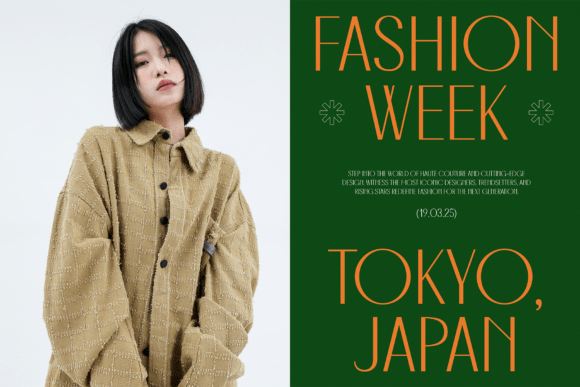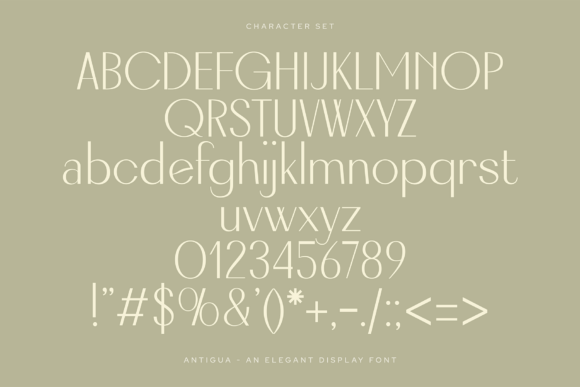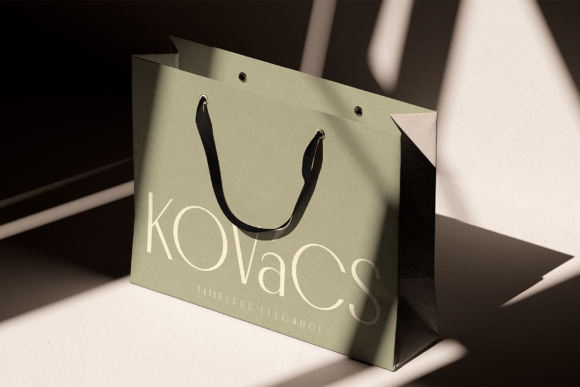
Make a Striking Impression with the Antigua Elegant Font
In the world of typography, few fonts manage to convey timeless elegance and sophisticated flair as effortlessly as the Antigua Elegant Font. This beautifully crafted typeface is a masterclass in sleek charm and aesthetic appeal, making it the perfect addition to any design project that demands a touch of refined sophistication. Whether you’re a seasoned designer or a crafty DIY enthusiast, the Antigua Elegant Font is sure to make a lasting impression.
The Beauty of Elegance
At its core, the Antigua Elegant Font is a celebration of classic elegance. Its sleek lines, flowing curves, and expertly balanced proportions come together to create a typeface that exudes refinement and poise. This font is not just a means of conveying information; it’s an experience in itself. The moment you lay eyes on text set in Antigua Elegant, you’re struck by its beauty and sophistication. It’s the perfect choice for designers and crafters who want to add a touch of luxury to their work.
Easy to Customize
One of the standout features of the Antigua Elegant Font is its versatility. This font is delightfully easy to tweak, allowing you to adjust the text color to seamlessly integrate with your visual theme. Whether you’re working on a branding project, a website, or a craft project, you can easily customize the font to match your unique aesthetic. This flexibility makes the Antigua Elegant Font an excellent choice for a wide range of applications, from professional design projects to personal crafting endeavors.
High-Quality Rendering
Perfect for Elegant Projects
The Antigua Elegant Font is specifically designed for projects that demand an aura of refined elegance. Whether you’re working on a luxury brand identity, a wedding invitation, or a high-end product catalog, this font is sure to make a lasting impression. Its sophisticated flair and timeless beauty make it an excellent choice for any project that requires a touch of class and sophistication.
Why Choose the Antigua Elegant Font?
So why choose the Antigua Elegant Font over other typefaces? Here are just a few compelling reasons:
- Timeless elegance: The Antigua Elegant Font exudes classic sophistication and refinement, making it perfect for projects that demand a touch of luxury.
- Versatility: This font is easy to customize, allowing you to adjust the text color to match your unique visual theme.
- Wide range of applications: The Antigua Elegant Font is suitable for a wide range of projects, from professional design endeavors to personal crafting projects.
| Font Name | Antigua Font |
| Author | febryan.satria1 |
In conclusion, the Antigua Elegant Font is a typeface that truly stands out from the crowd. Its timeless elegance, sophisticated flair, and versatility make it an excellent choice for designers and crafters who want to add a touch of refined sophistication to their work. With its high-quality rendering and wide range of applications, this font is sure to become a staple in any design toolkit. So why wait? Make a striking impression with the Antigua Elegant Font today!